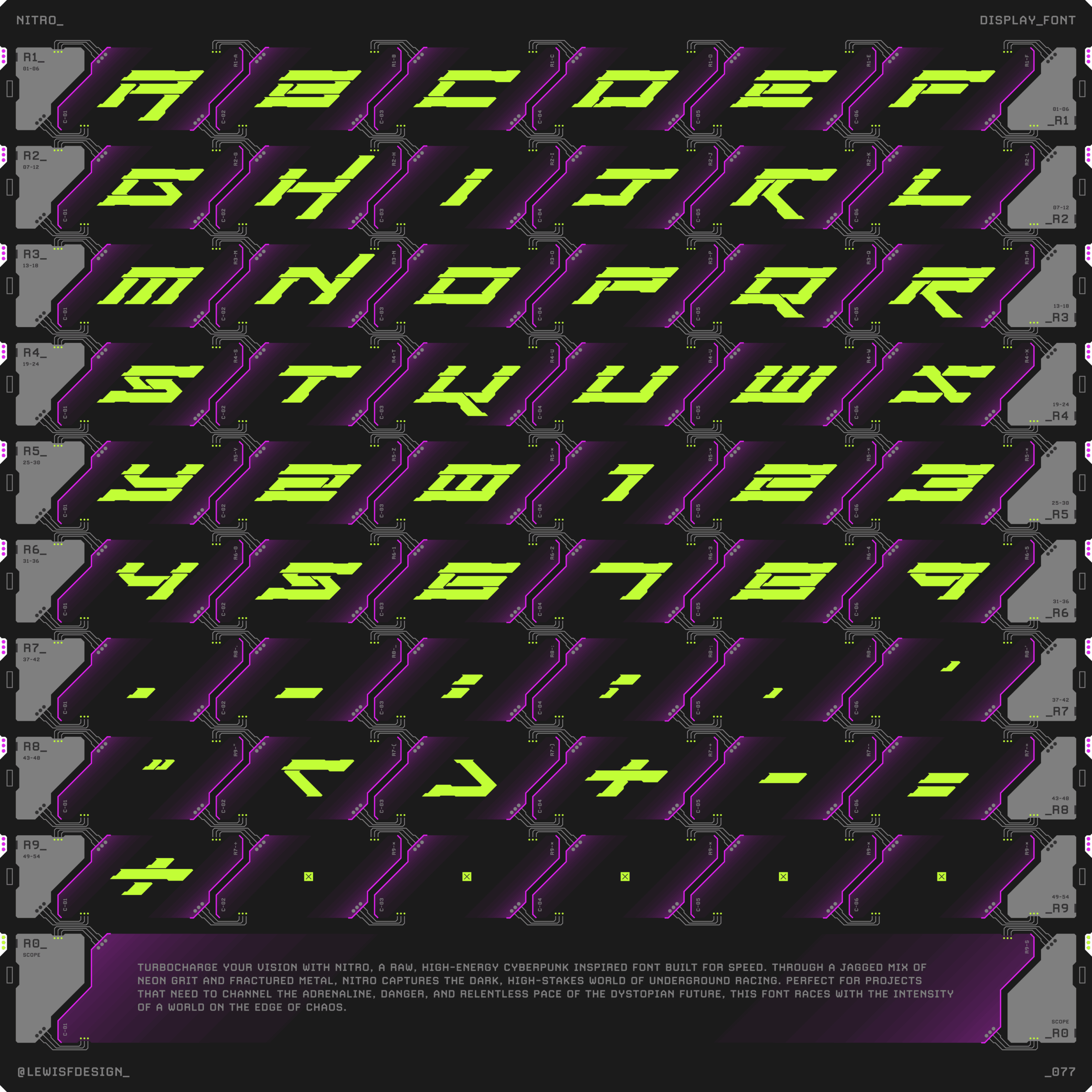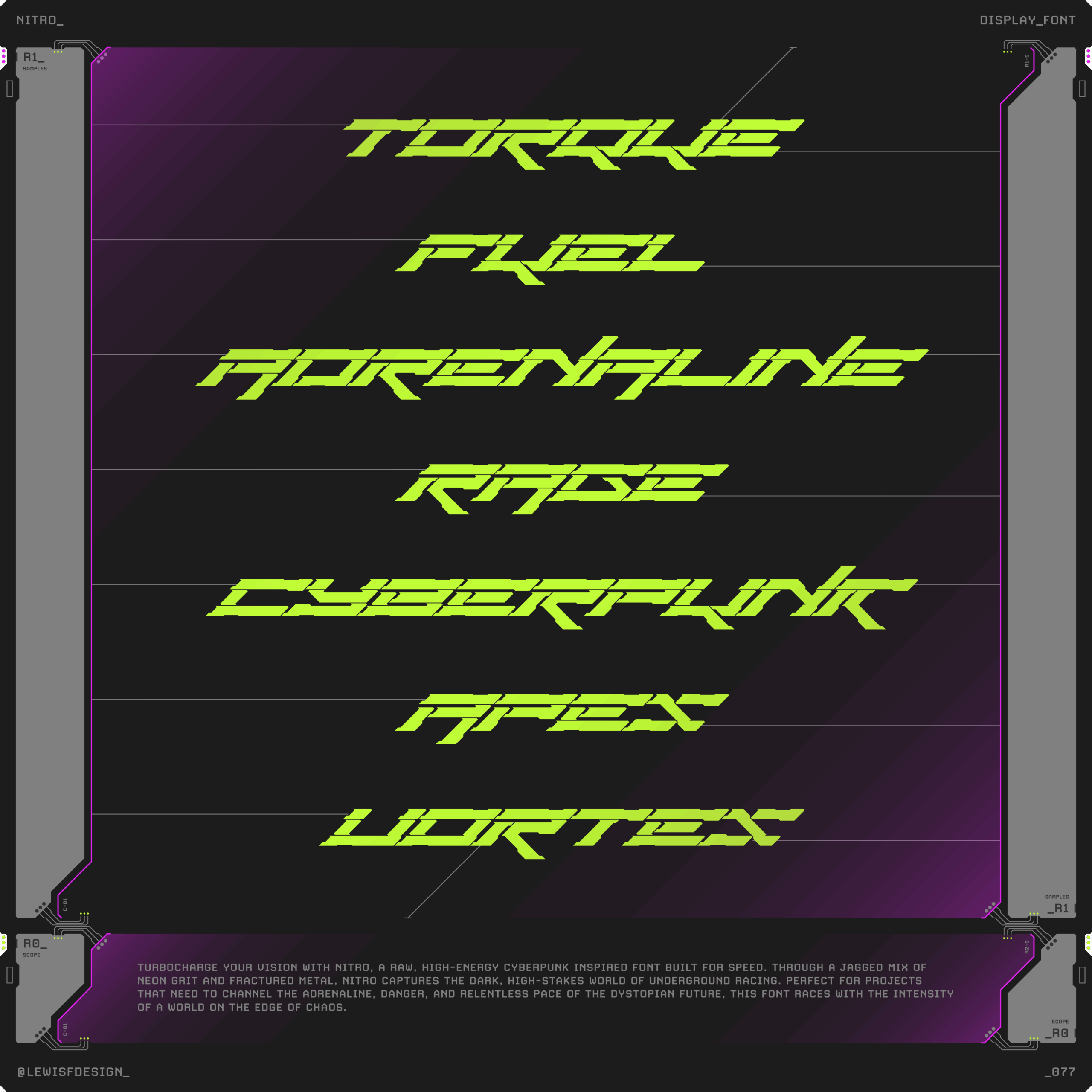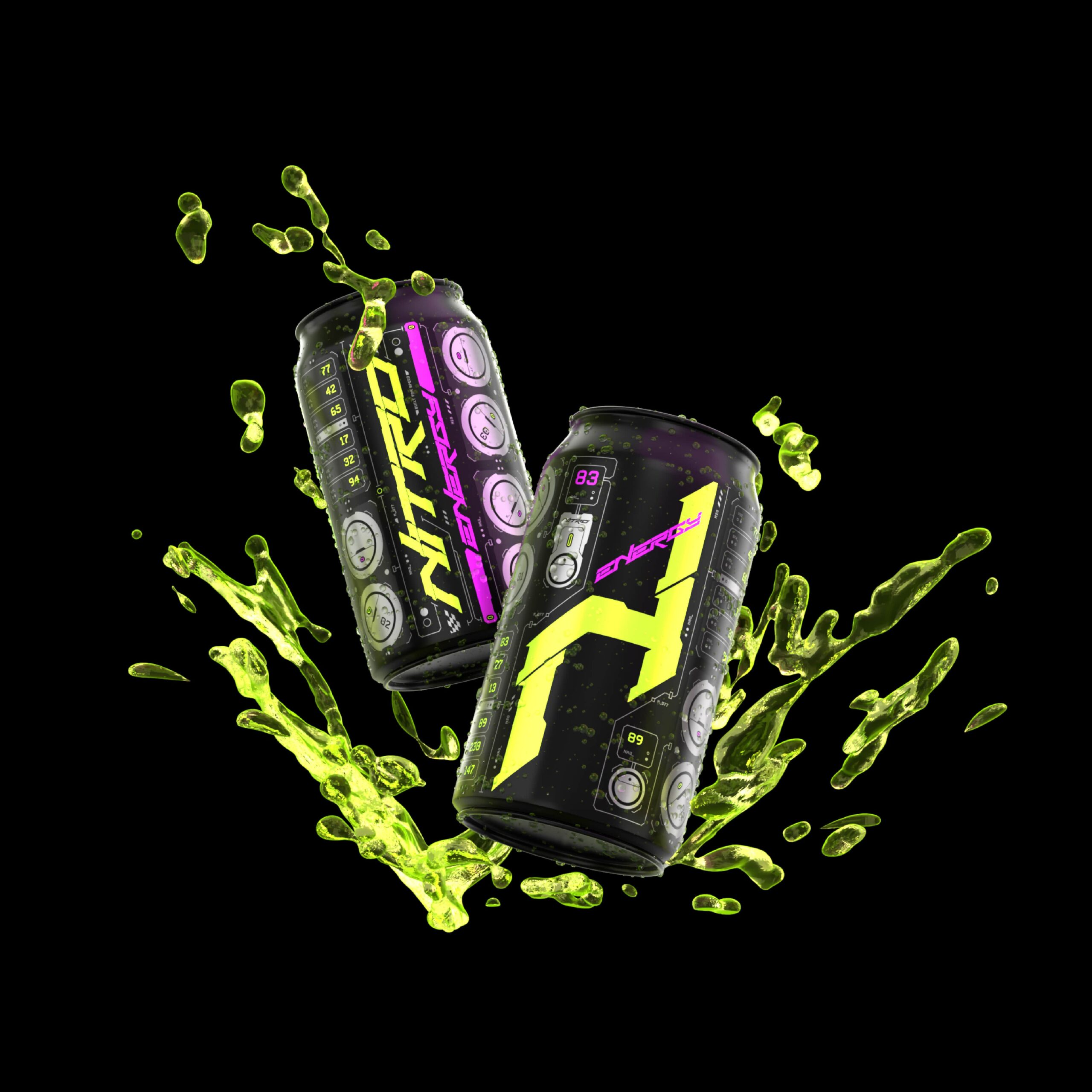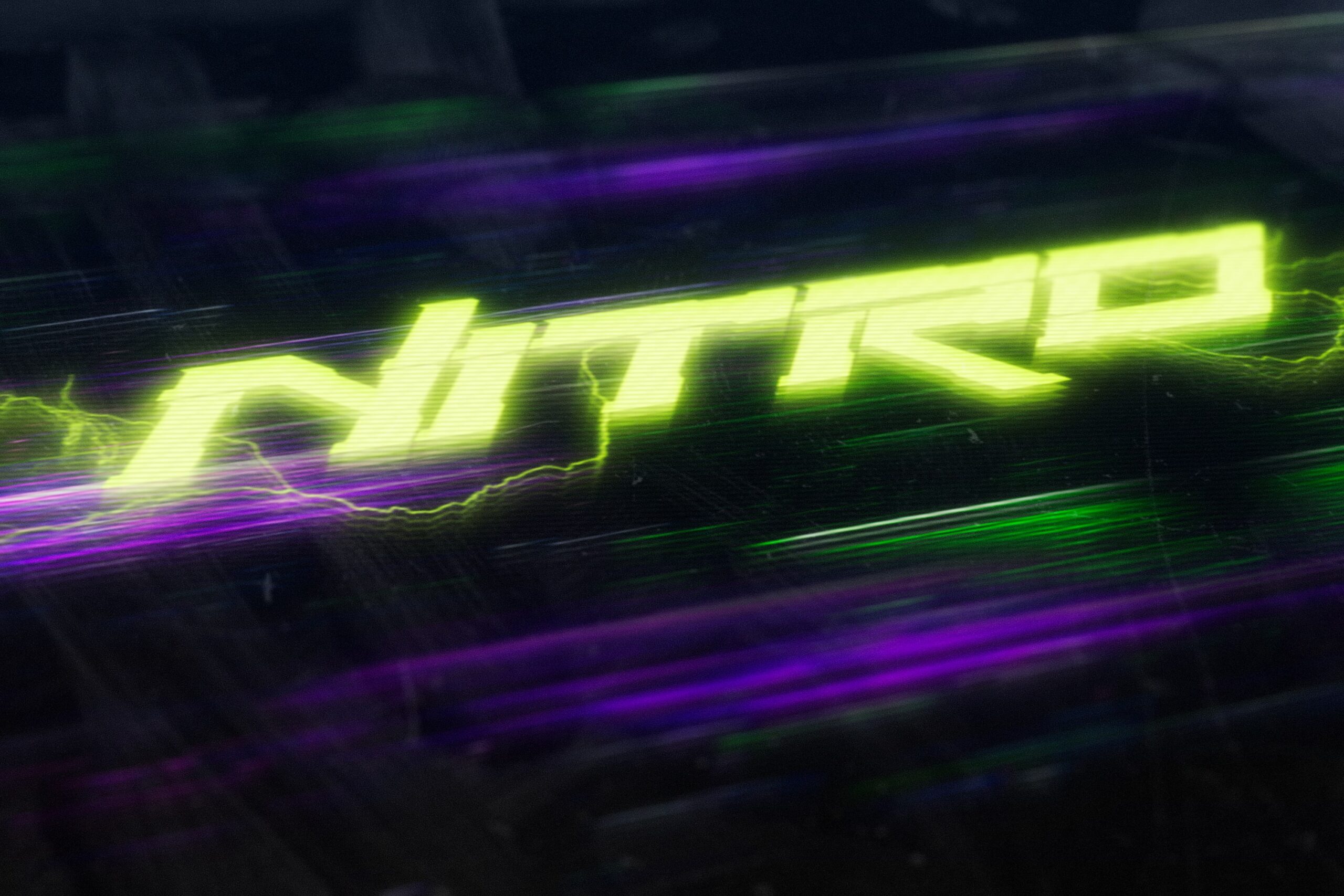
Nitro is a raw, high-energy cyberpunk display font built for speed. Jagged edges, neon grit and fractured metal capture the dark, high-stakes world of underground racing. Ideal for titles, posters, esports branding and sci-fi interfaces that need adrenaline, danger and forward momentum. Format: .OTF Web Format: .WOFF (Extended Licence only)